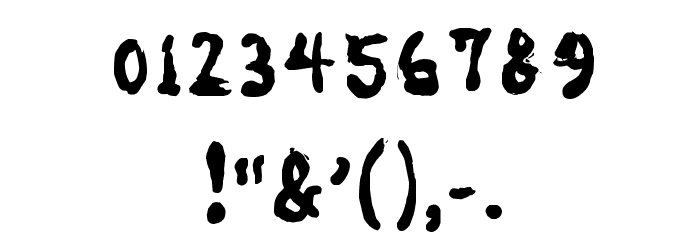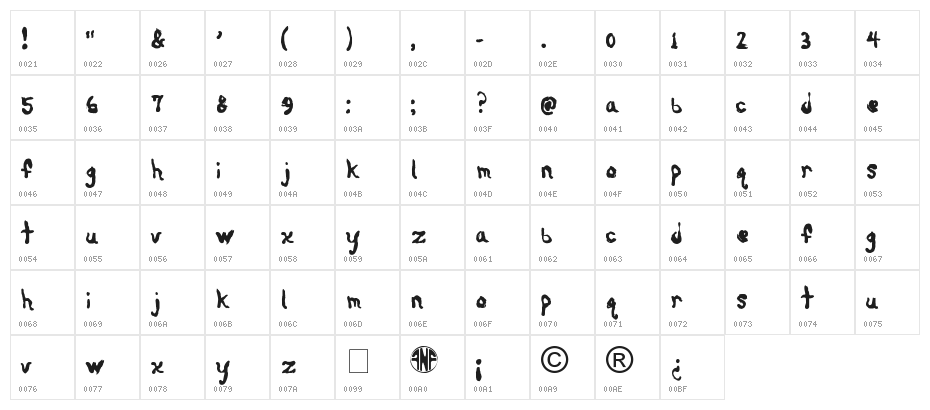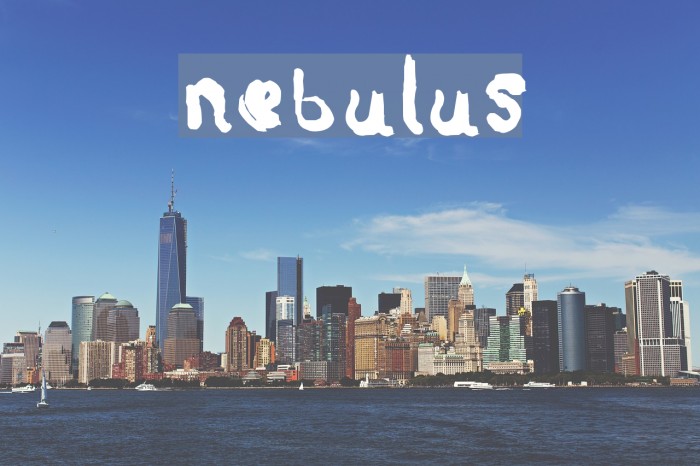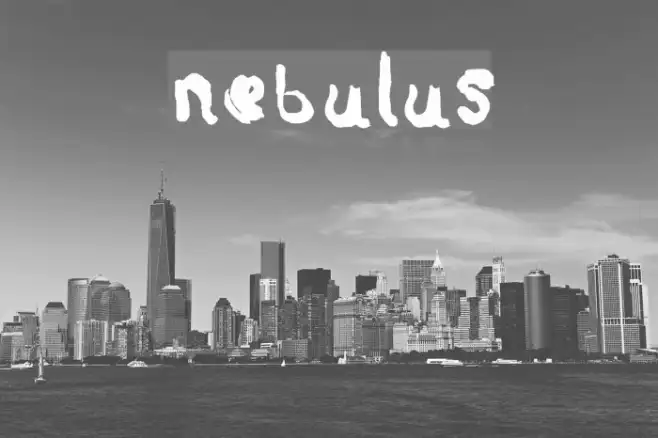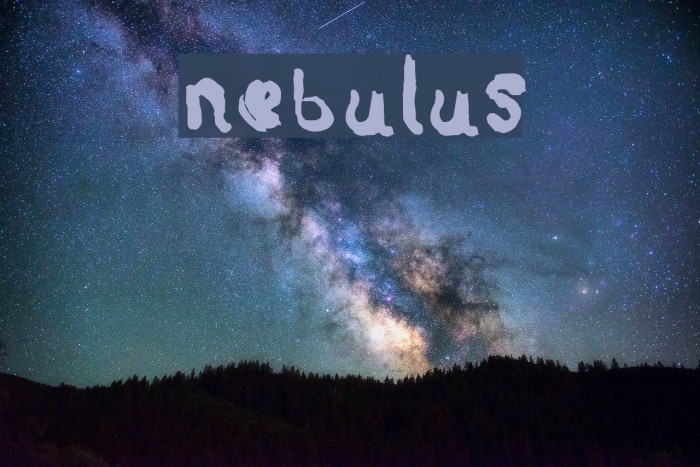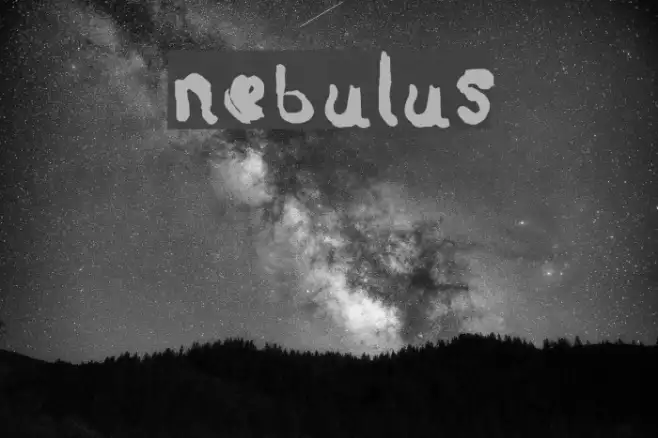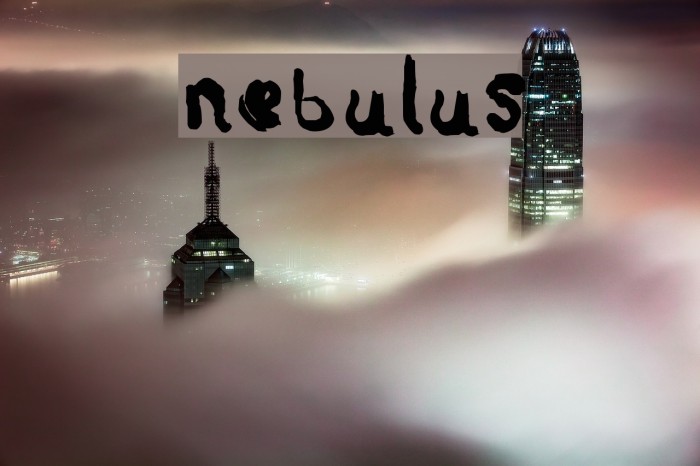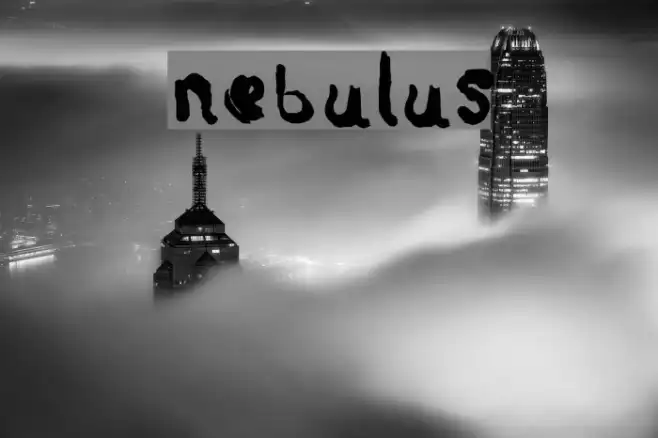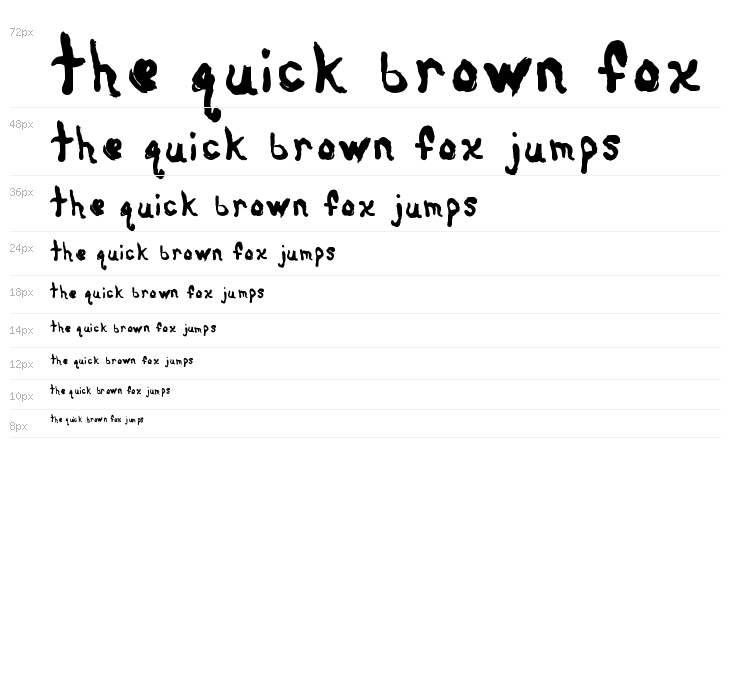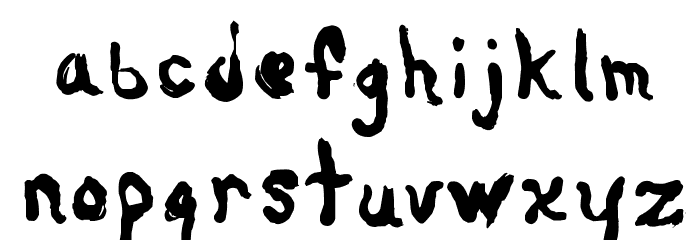
Nebulus Font
Nebulus Description
This font exhibits a playful and artistic handwritten style, characterized by its irregular and organic letterforms. The strokes are bold and uneven, giving it a dynamic and expressive appearance. Each character has a unique flair, with varying thickness and slight slants, contributing to its informal and casual vibe. The font maintains a consistent baseline, but the heights of the letters vary, adding to its whimsical nature. The numbers and special characters follow the same artistic style, ensuring a cohesive look across all elements.
Proposed ProjectsIdeal for creative projects such as greeting cards, posters, children's books, and artistic branding.